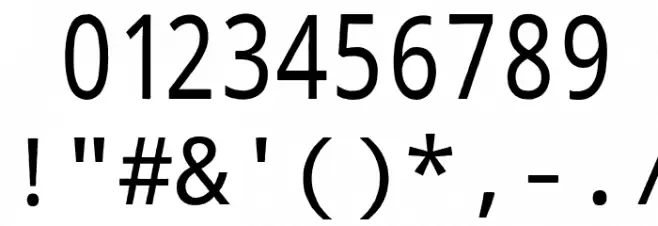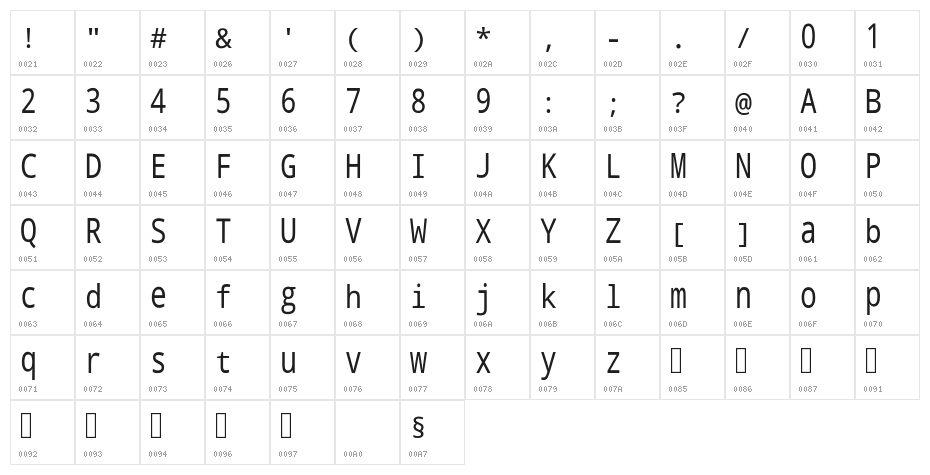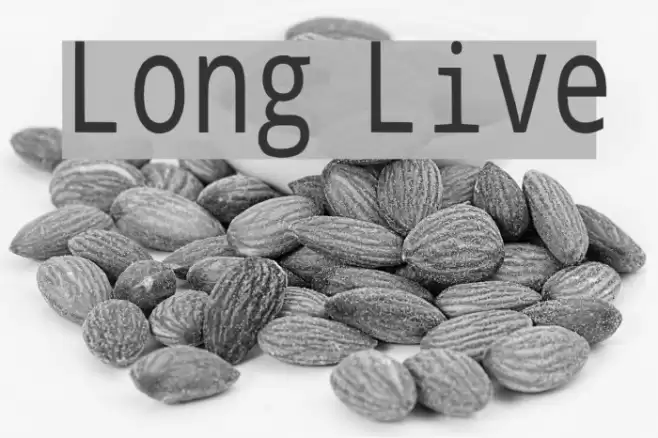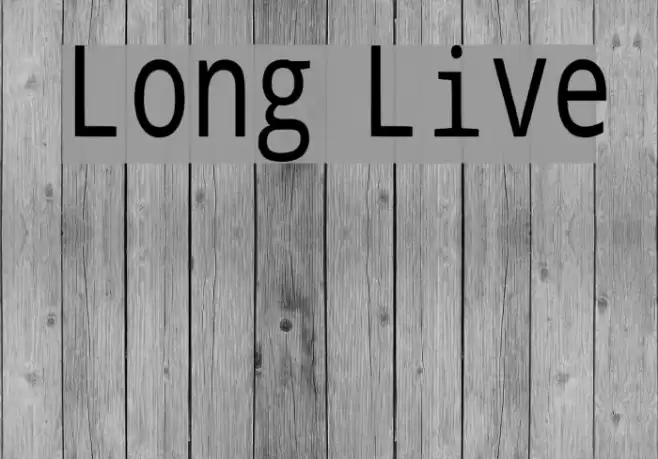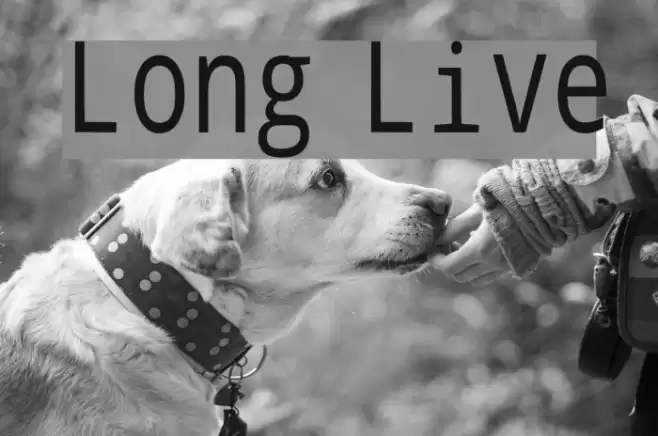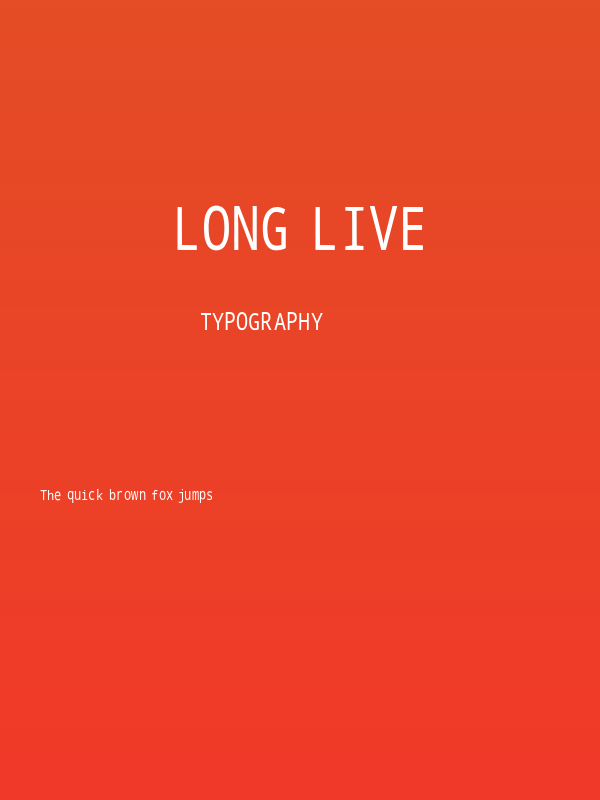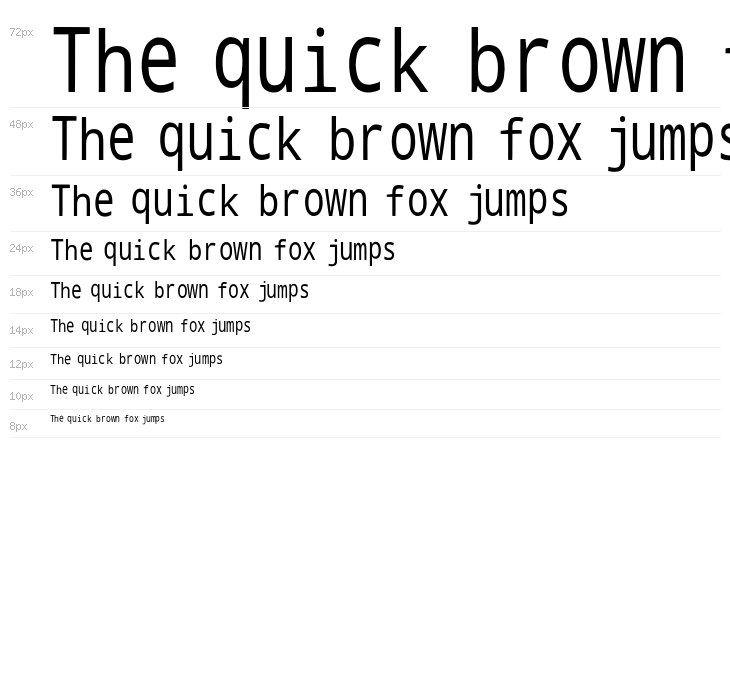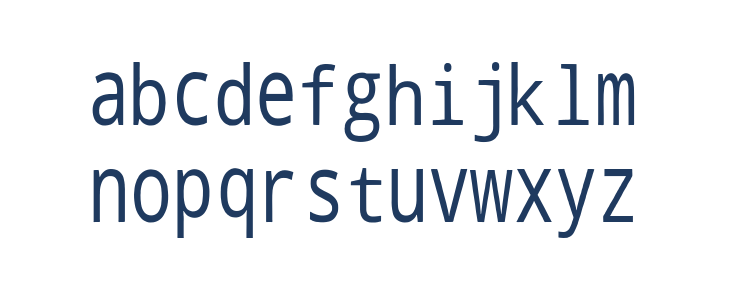
Long Live Font
Long Live Description
This font features a clean and modern sans-serif design, characterized by its simplicity and readability. The letters are evenly spaced with a consistent stroke width, providing a balanced and harmonious appearance. The uppercase and lowercase letters maintain a uniform height, contributing to its legibility. The numerals are straightforward and align well with the overall style, while the special characters are clearly defined and integrate seamlessly with the alphabet. This font's minimalistic approach makes it versatile for various applications.
| Use Case | Body text, User interfaces, Editorial content |
| Proposed Projects | Ideal for web design, corporate branding, user interfaces, and editorial content. |